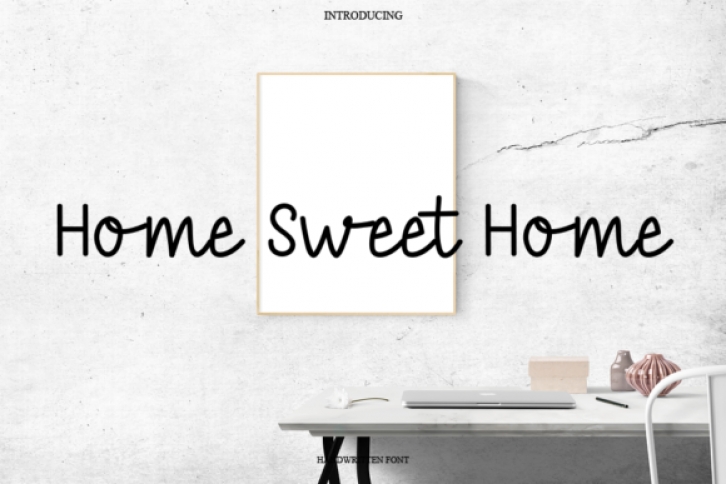
Home Sweet Home is a simple and friendly handwritten font. Its flexibility and neat style will brighten up each of your designs. Have fun with this cool font and explore its endless variations.